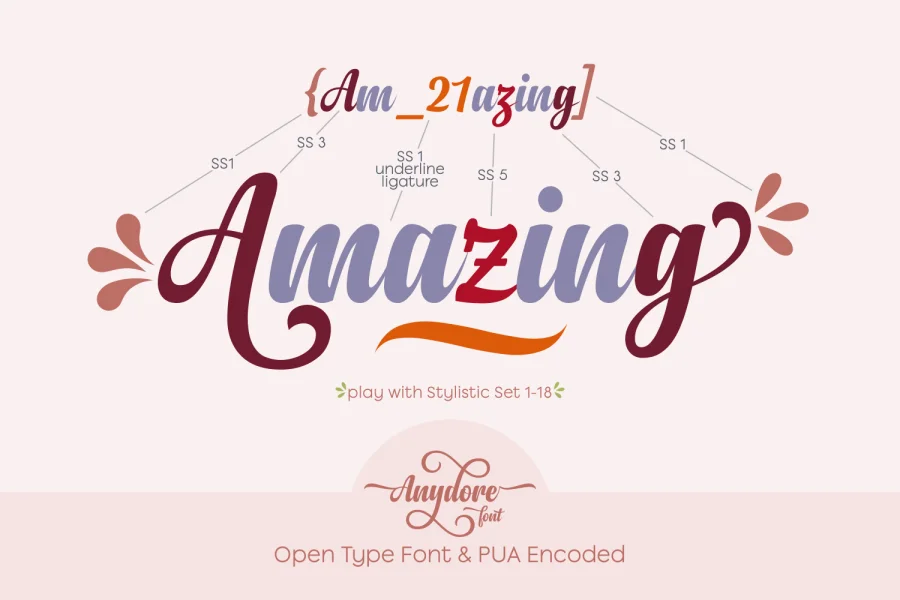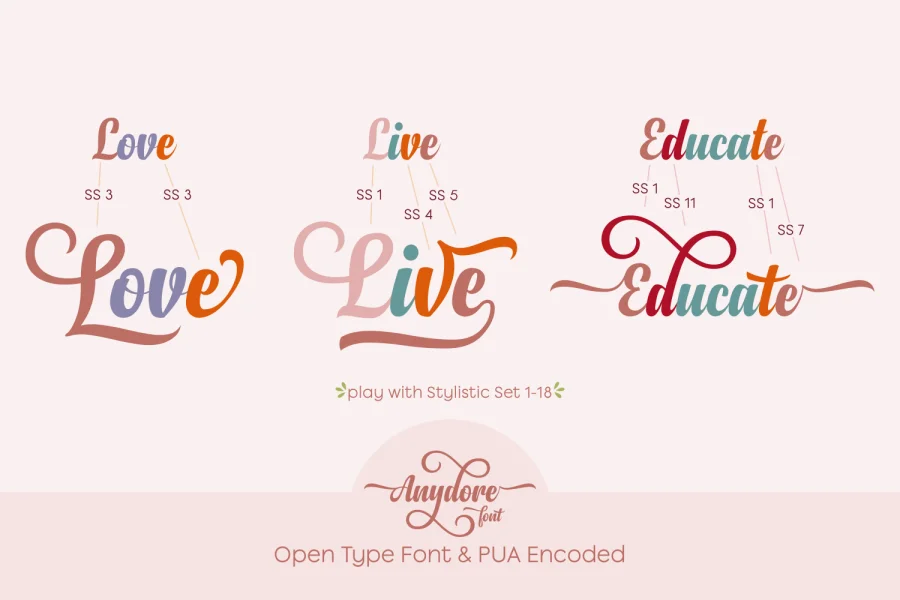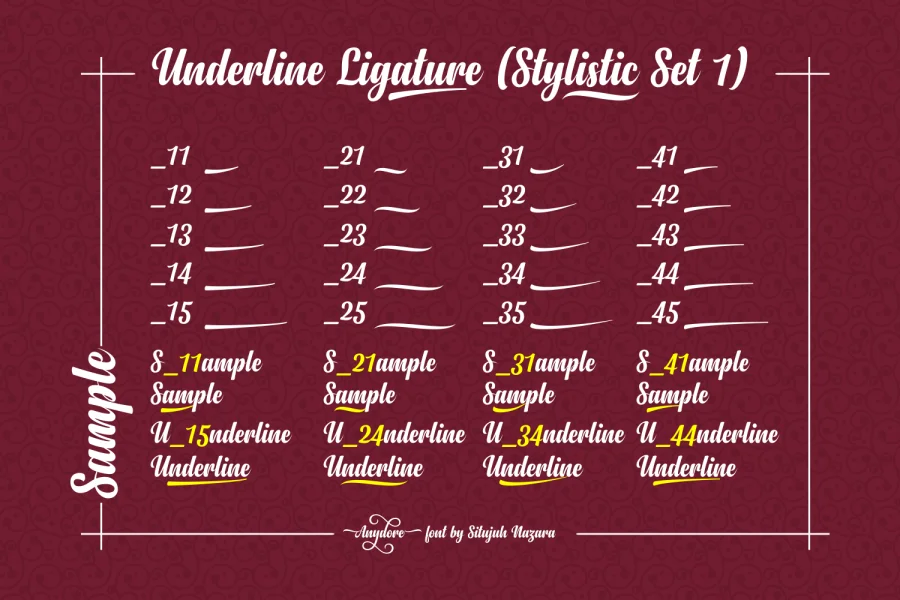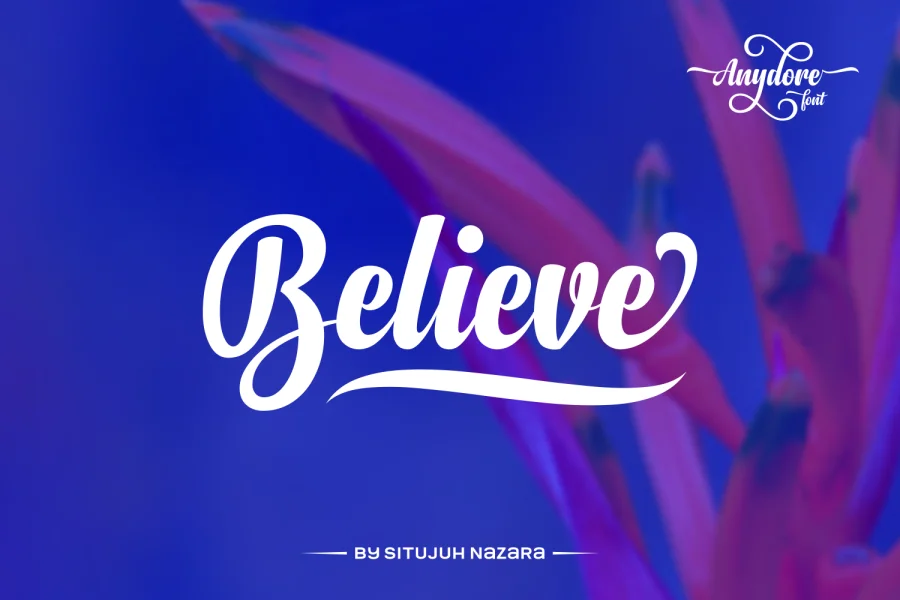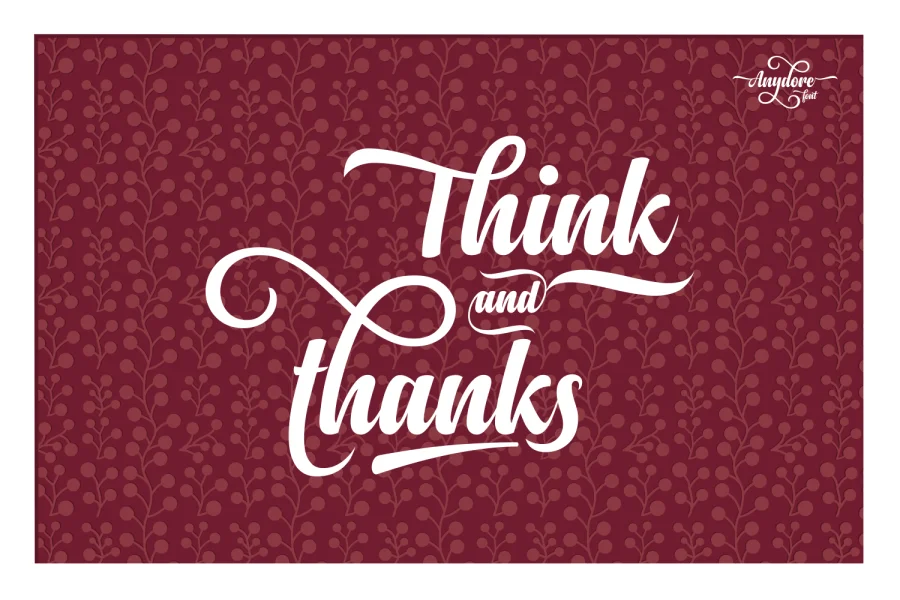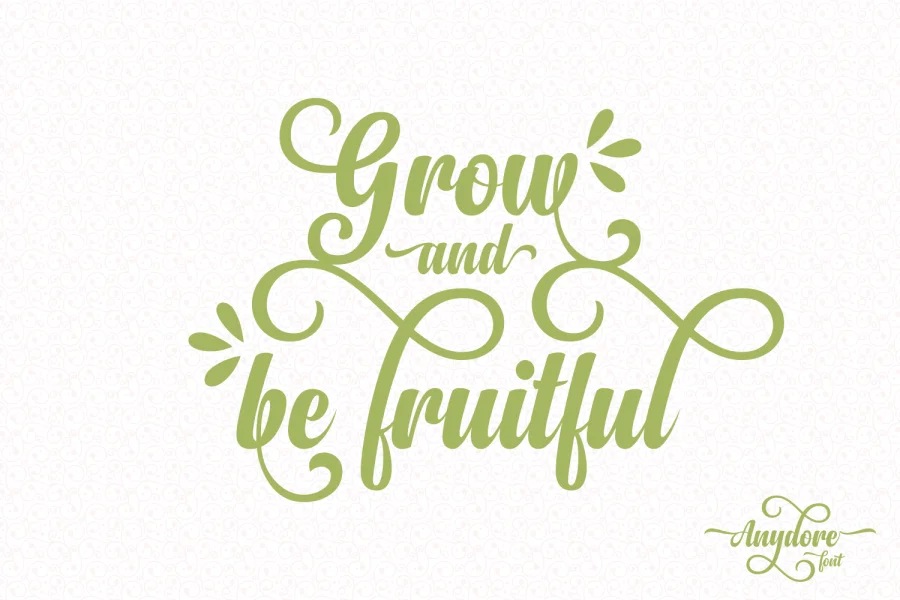
Anydore Font
Designed by 7NTypes
The Anydore font is an elegant and strong handwritten script created by Situjuh Nazara.
Anydore is not only designed for a better script in text, it also comes packed with lot’s of alternate characters (Stylistic Set 1-18) that allow you to come up with unique designs each time you use it.